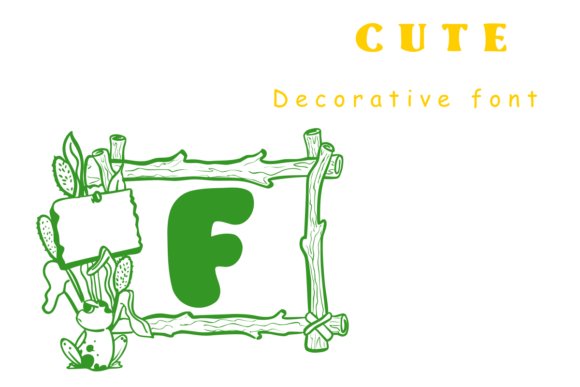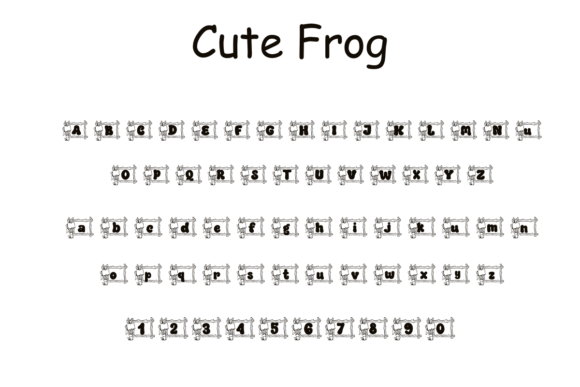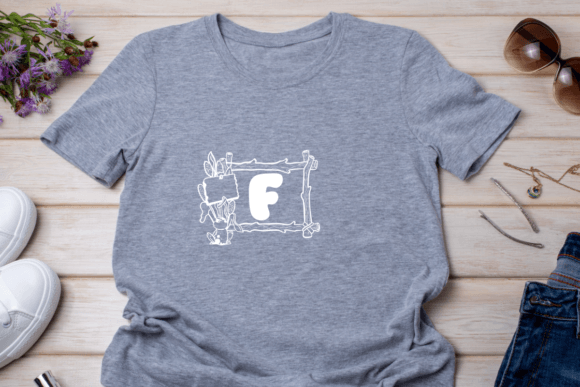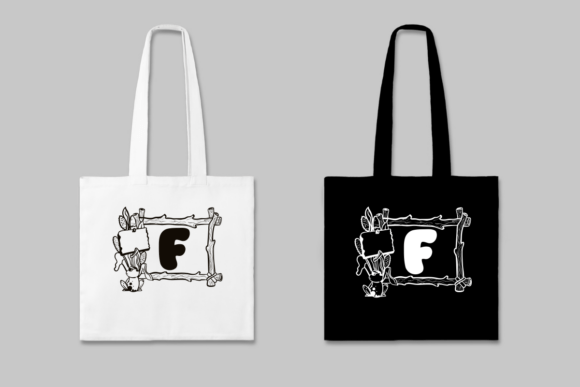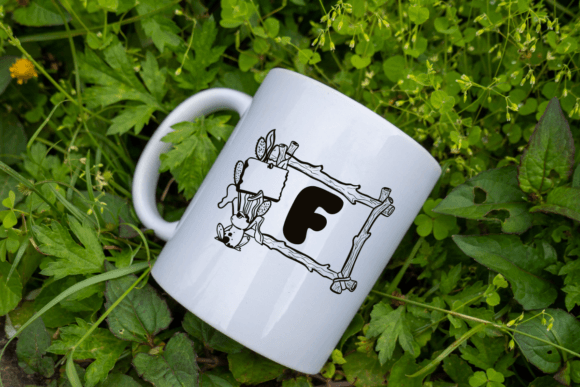
Cute Frog Font: A Fun and Playful Decorative Font for Your Designs
Are you looking for a font that can add a touch of whimsy and playfulness to your designs? Look no further than the Cute Frog Font! This adorable decorative font is perfect for a variety of projects, from personal notes and diaries to greeting cards, banners, and more. In this article, we’ll explore the features and uses of the Cute Frog Font, and show you how to make the most of this fun and versatile font.
What is Cute Frog Font?
Cute Frog Font is a decorative font designed to resemble the playful and charming appearance of frogs. The font features rounded edges, bouncy curves, and a carefree vibe that’s sure to bring a smile to anyone’s face. With its unique and eye-catching design, Cute Frog Font is perfect for adding a personal touch to your writing, designs, and crafts.
Uses for Cute Frog Font
One of the best things about Cute Frog Font is its versatility. This font can be used for a wide range of projects, including:
- Note-taking and journaling: Add a playful touch to your notes, to-do lists, and diary entries with Cute Frog Font.
- Greeting cards and invitations: Create one-of-a-kind greeting cards, invitations, and party decorations with this fun and festive font.
- Banners and signs: Use Cute Frog Font to create eye-catching banners, signs, and posters for events, sales, and promotions.
- Mugs, shirts, and stationery: Add a personal touch to your mugs, shirts, and stationery with this adorable font.
- Social media posts: Stand out on social media with Cute Frog Font, perfect for creating engaging and shareable content.
Why Choose Cute Frog Font?
So why choose Cute Frog Font for your designs? Here are just a few reasons:
- Unique and playful design: Cute Frog Font is sure to grab attention and add a touch of whimsy to your designs.
- Easy to read and use: Despite its playful design, Cute Frog Font is easy to read and use, making it perfect for a variety of projects.
- Versatile: Cute Frog Font can be used for both personal and commercial projects, making it a great addition to any designer’s toolkit.
Tips for Using Cute Frog Font
Here are a few tips for getting the most out of Cute Frog Font:
- Use it sparingly: While Cute Frog Font is playful and fun, it can be overwhelming if used too much. Use it sparingly to add a touch of whimsy to your designs.
- Pair it with other fonts: Cute Frog Font pairs well with a variety of other fonts, including sans-serif and script fonts. Experiment with different pairings to find the perfect look for your design.
- Experiment with colors and textures: Cute Frog Font looks great in a variety of colors and textures. Experiment with different colors and textures to find the perfect look for your design.
Cute Frog Font is a fun and playful decorative font that’s perfect for adding a touch of whimsy to your designs. With its unique and eye-catching design, versatility, and ease of use, Cute Frog Font is a great addition to any designer’s toolkit. Whether you’re a designer, crafter, or simply someone who loves to write and create, Cute Frog Font is sure to bring a smile to your face and inspire your creativity.